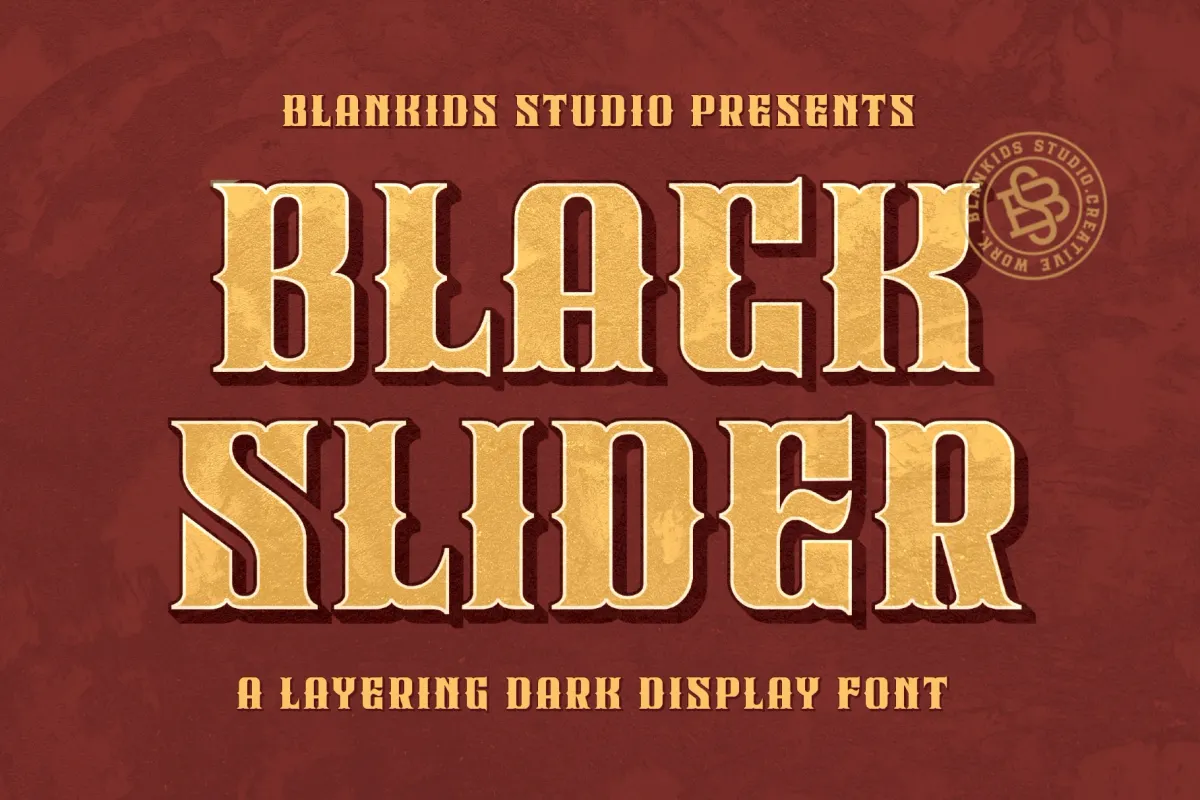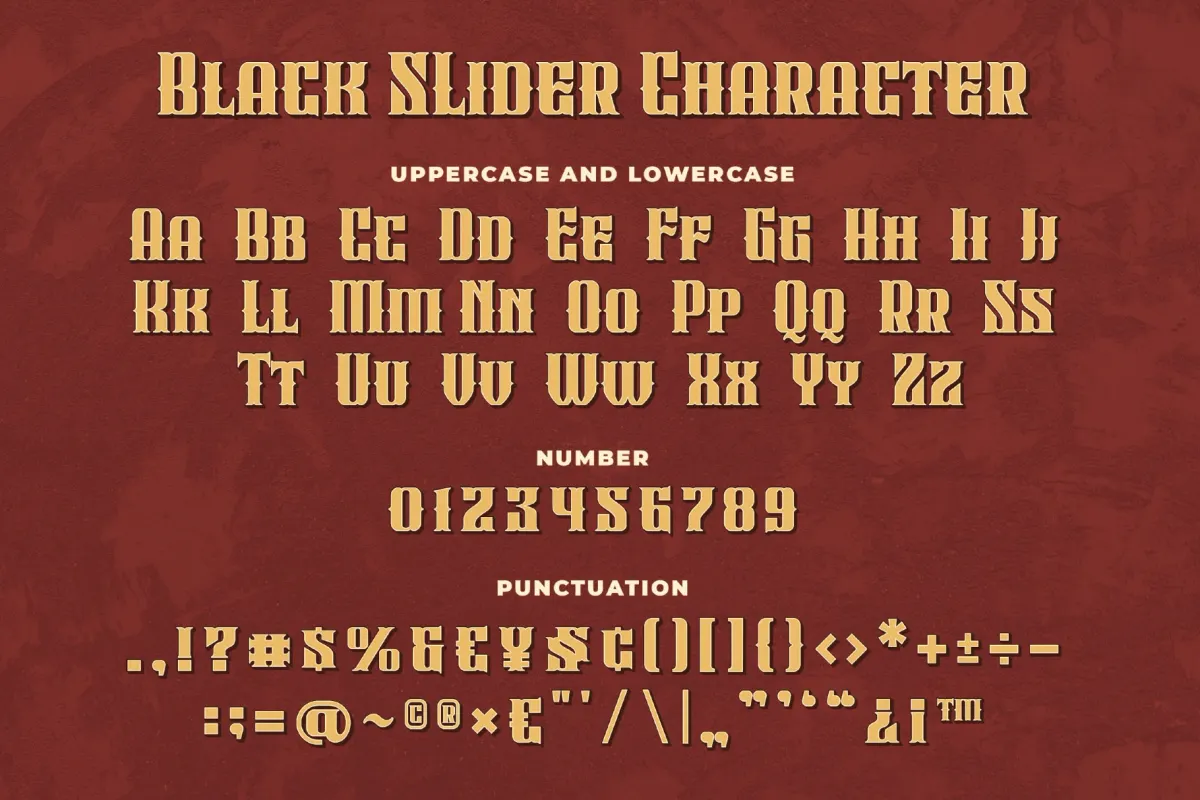
Black Slider - Victorian Vintage Display Font
Extrude
Inline
Black Slider
Black Slider layers three matching styles — a solid Regular, a hollow Inline, and a dimensional Extrude — on top of a Victorian-era serif skeleton, so headlines can stack a shadow pass under a clean outline the way old western signage did. Slab serifs and slight bracketed curves keep the letterforms rooted in that saloon-sign, old-timey register rather than reading as generic blackletter.
Use it for book covers, posters, packaging, merchandise, and logotypes that need a period western feel.
- uppercase & lowercase;
- 3 styles: Regular, Inline, Extrude;
- numerals & punctuation;